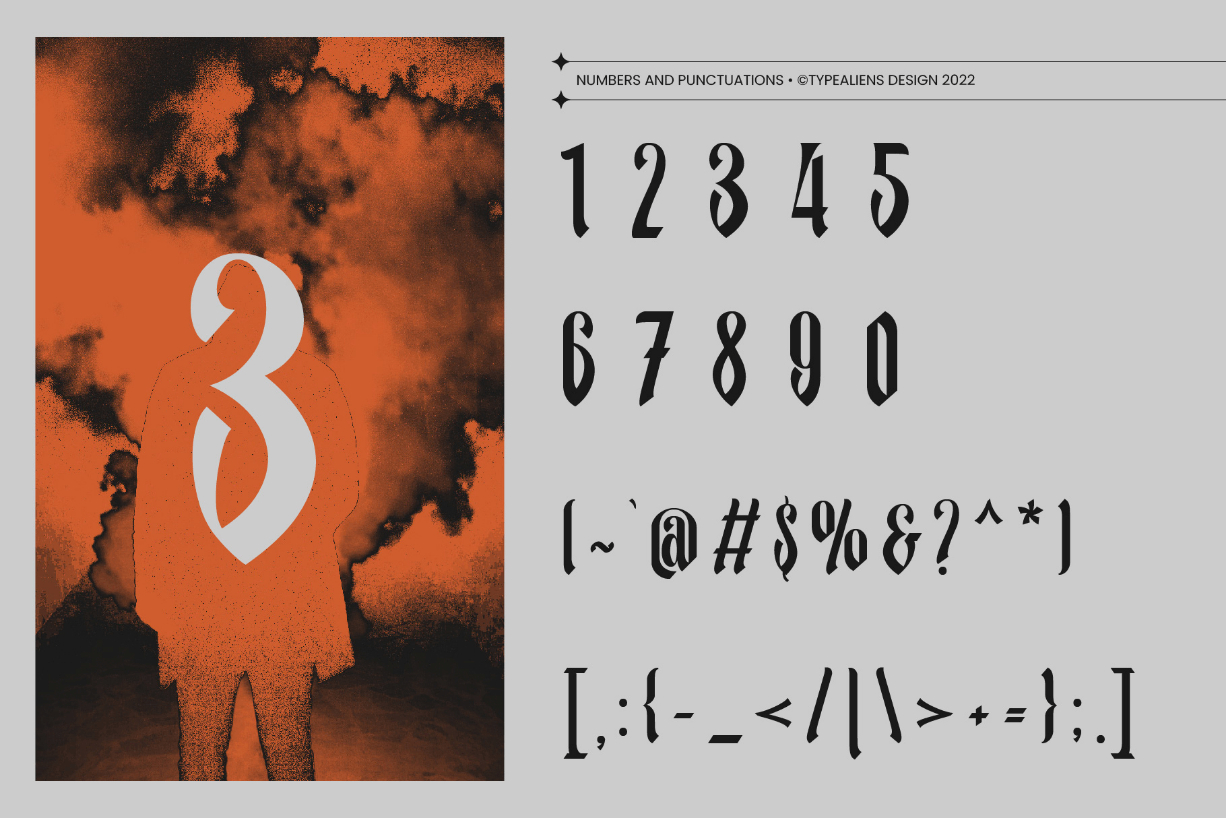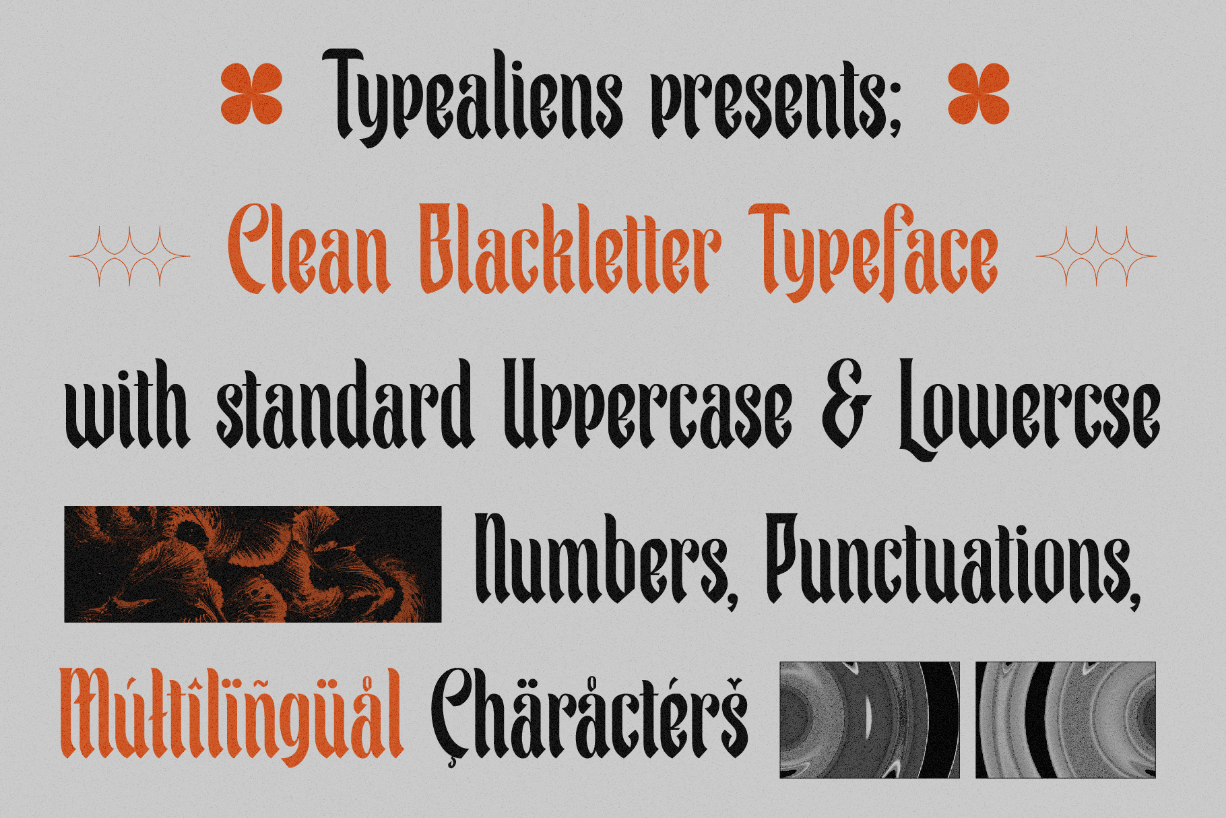
About Avrente Font
AVRENTE is a font that is actually a simplified blackletter to make it cleaner and simpler, the goal is to refine it from the actual blackletter to make it easier to read, apart from being more modern because it is clean this font does not rule out the possibility for vintage designs.